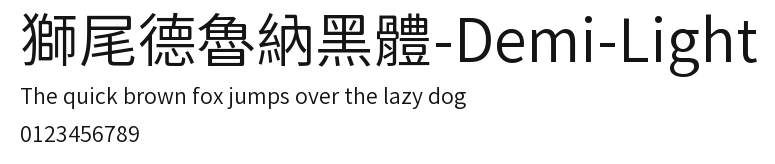
獅尾德魯納黑體-Demi-Light Preview
About 獅尾德魯納黑體-Demi-Light.ttf
獅尾德魯納黑體-Demi-Light.ttf is a modern, elegant sans-serif font designed for ultimate readability and visual harmony. Perfect for branding, headlines, web design, and print materials.